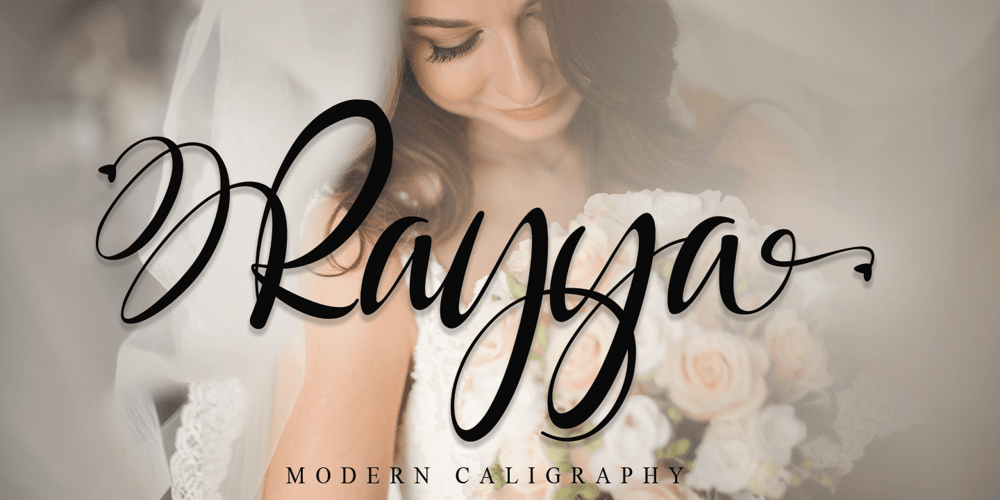
Rayya Font Family was designed by Thomas Aradea and published by Letterara. Rayya contains 2 styles and family package options. Rayya is a modern calligraphy font carefully created with a touch of elegance. This is a beautiful combination of timeless elegance and authentic calligraphy. It features amazing swashes and ligatures that make the script incredibly versatile. Whether you’re looking for fonts for Instagram or calligraphy scripts for DIY projects, Saylina will turn any creative idea into a true piece of art!This font is PUA encoded which means you can access all of the cute glyphs and swashes with ease! It also features a wealth of special features including alternate glyphs and ligatures.